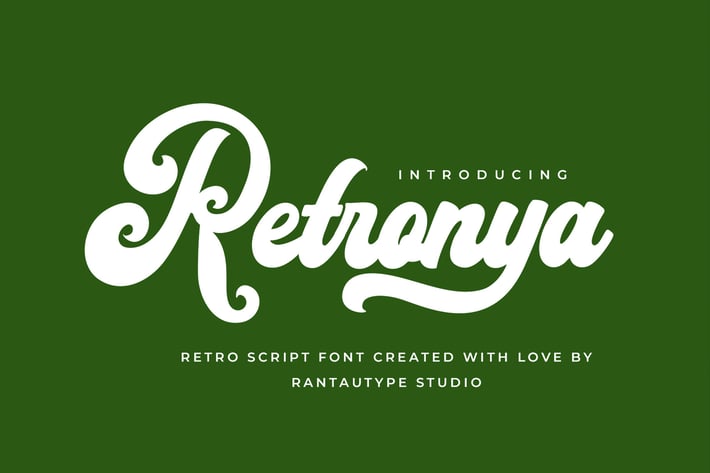
Retronya Retro Script Font
Retronya is retro script font with bold and playful style. Retronya is a perfectly choice for any creative endeavor, creating, retro, lifestyle design such as logotype, title, cover, branding, invitations, wedding designs, display and magazine, social media posts, advertisements, printed quotes, product packaging, corporate brand, product designs, labels, photography, watermarks, special events and any other project with playful touch.
+ Ligature and alternate